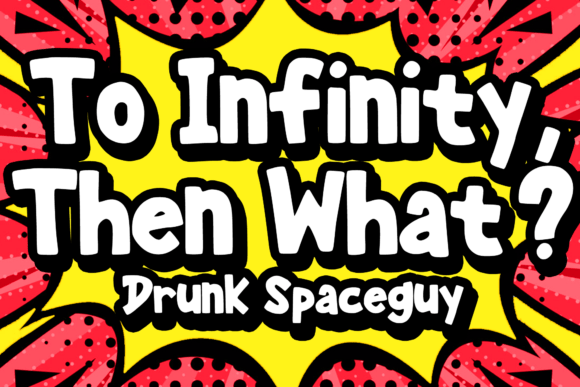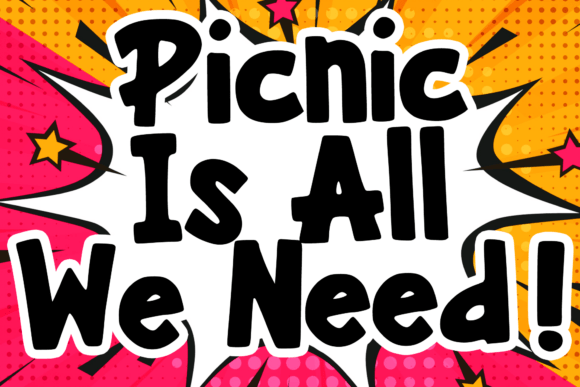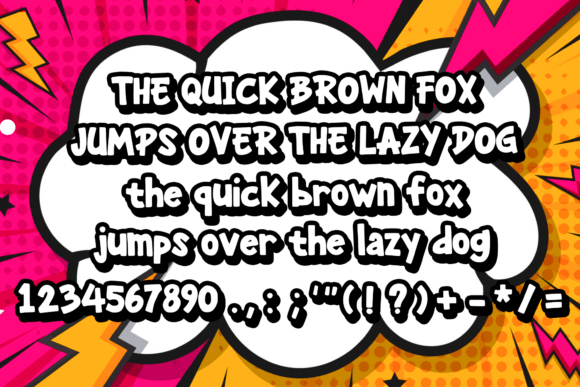
Unleash Your Creativity with Bingo Action Comic Font
Have you ever been in the middle of a design project, and suddenly, you’re stuck on finding the perfect font? I recall a recent experience where I was working on a children’s book illustration, and I just couldn’t find a font that captured the playful, adventurous spirit I was aiming for. That’s when I stumbled upon the Bingo Action Comic font, and it completely transformed my project!
A Personal Review: What I Love About Bingo Action Comic
The Bingo Action Comic font has been a game-changer for my designs. Here’s what I love about it:
- ✨ Vibrant and Bold: This font is perfect for making a statement. It’s eye-catching, fun, and adds a burst of energy to any design.
- ✅ Versatile: From kids’ book art to children’s party décor, greeting cards, stickers, posters, and banners – this font is ideal for a wide range of creative projects.
- 🎉 Comic-Style Charisma: The font has a unique charm that instantly adds a playful touch to your designs.
While I absolutely love the Bingo Action Comic font, there are a few minor quirks to be aware of:
- 🤔 Legibility at Small Sizes: Like many bold, decorative fonts, legibility can be an issue at very small sizes. It’s best used at larger sizes where its impact can shine.
- ⚠️ Overuse: Because it’s so fun and vibrant, there’s a risk of overusing this font. Balance is key to keeping your design fresh and engaging.
The Inspiration Behind Bingo Action Comic
While the actual origins of Bingo Action Comic might not be well-documented, it’s easy to imagine a designer passionate about comic books and playful typography creating such a font. Perhaps they wanted to bottle up the excitement and adventure of comic strips and superheroes into a typeface that’s accessible to everyone. The result is a font that’s not only fun but also versatile, capable of bringing a smile to people’s faces.
| Font Name | Bingo Action Comic Font |
| Author | MVMET |
| What makes Bingo Action Comic font unique? | Its vibrant, bold, and comic-style charisma sets it apart, making it perfect for projects needing a fun and adventurous touch. |
| Is Bingo Action Comic suitable for body text? | Due to its bold and decorative nature, it’s best used for headings and titles. For body text, a more readable font would be recommended. |
In conclusion, the Bingo Action Comic font is a fantastic addition to any designer’s toolkit. Its ability to bring fun, adventure, and a comic-style charm to a wide range of projects makes it incredibly versatile. Whether you’re working on a children’s book, party decorations, or just want to add some playfulness to your greeting cards and stickers, Bingo Action Comic is sure to deliver. So, why not give it a try and see how it can transform your creative projects?